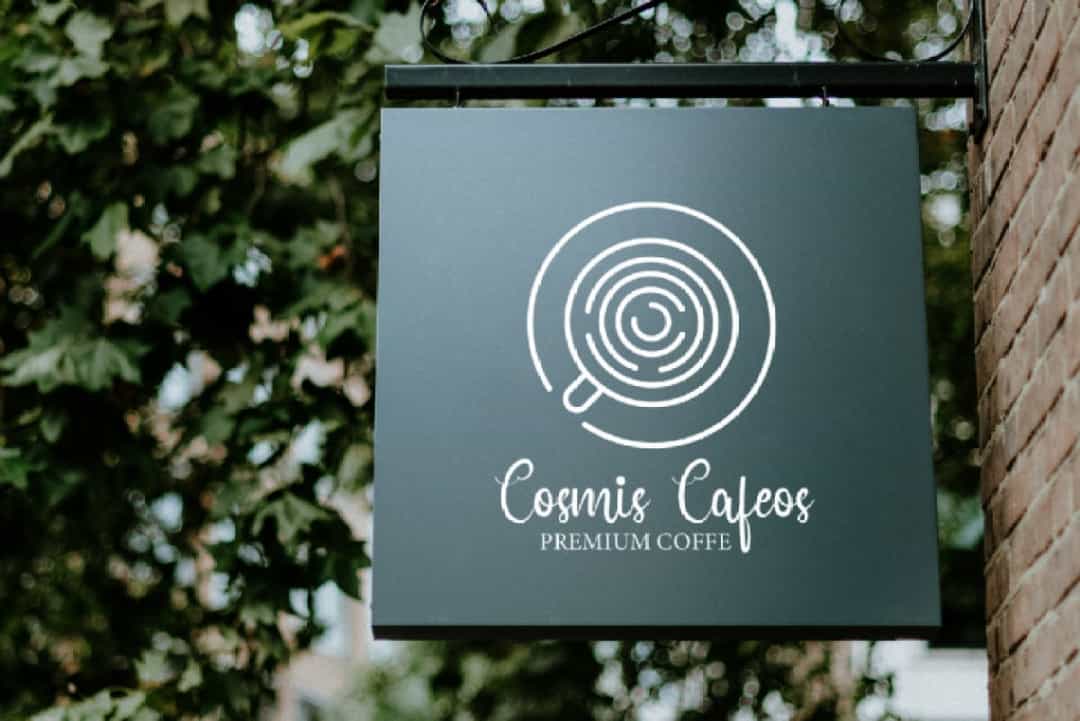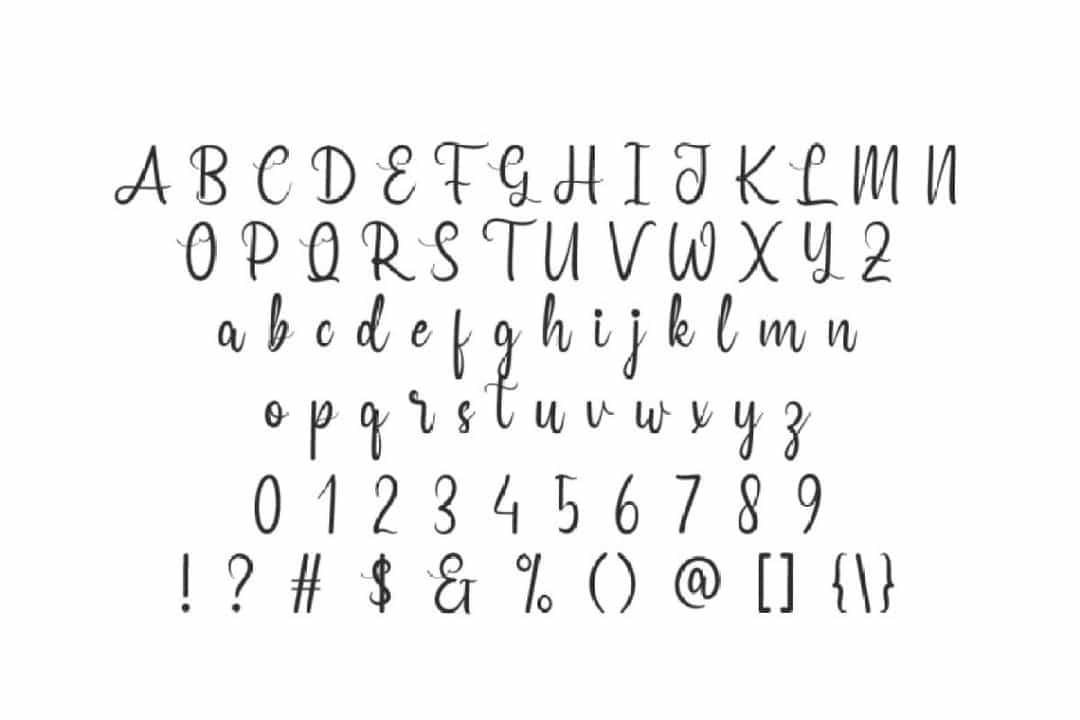
Daringness is an elegant handwriting calligraphy font with an attractive design which incorporates both traditional and contemporary font styles. Every letter of this font has been drawn to be beautiful and each one of them was taken from Italian women or ancient manuscripts. It is incredible but what makes work look awesome and impressive is daringness!